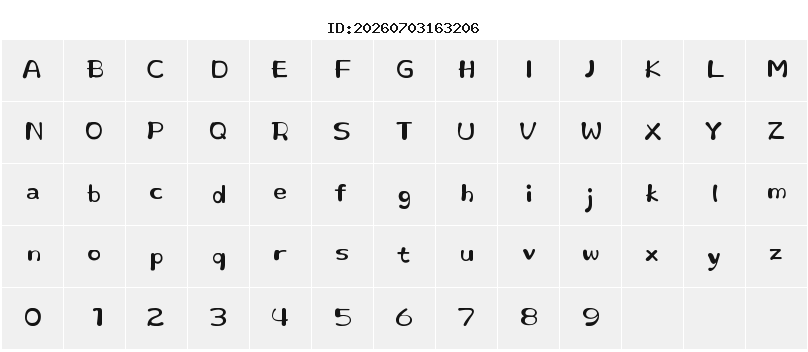
About 439-上首咿呀体.ttf
439-上首咿呀体.ttf is a modern, elegant sans-serif font designed for ultimate readability and visual harmony. Perfect for branding, headlines, web design, and print materials.